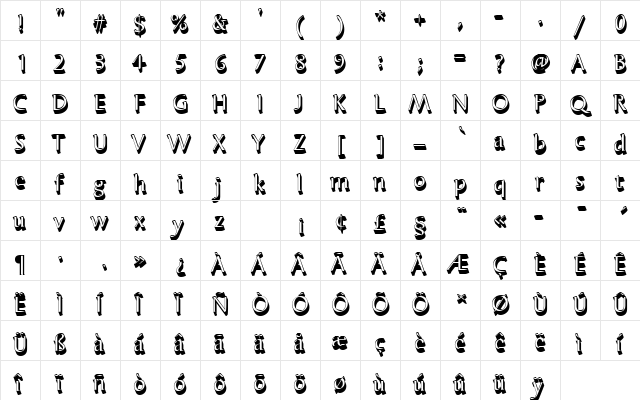
BarbedorTRegSh1 Regular Font Preview
BarbedorTRegSh1 Regular
Design Context for BarbedorTRegSh1 Typeface
BarbedorTRegSh1 is a composed and adaptable typeface that performs quietly and consistently across a wide range of design contexts.